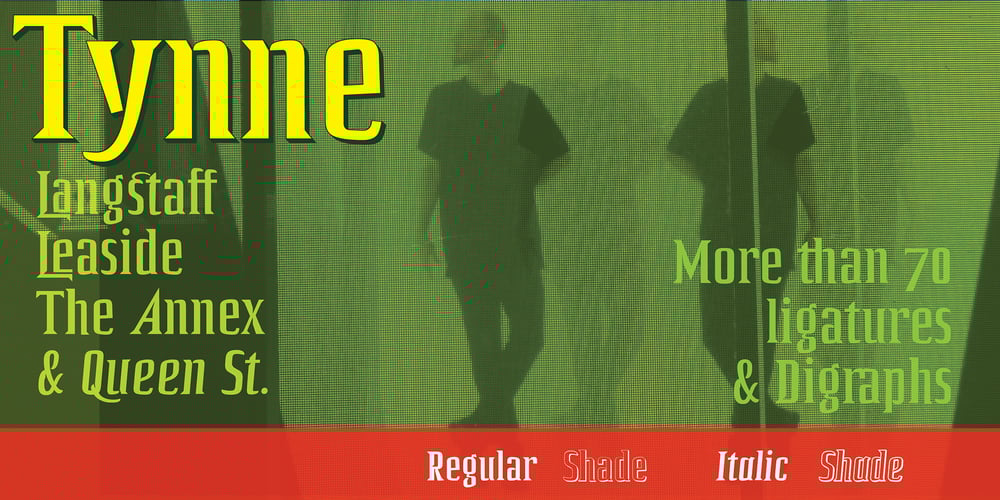
Tynne
Tynne font
Tynne Font Family was designed by Russell A. McGorman and published by Our House Graphics. Tynne contains 3 styles and family package options. OHG is pleased to announce the release of Tynne 2.0, now with two new out-line, drop-shade fonts which work independently as attractive display faces in their own right or one layer of a two layer, chromatic typeface. In addition, kerning and letter spacing have been adjusted and improved to ensure all characters will line up correctly when layered. Tynne, Is a strong, wedge-serif, condensed display font. Deep �ink traps�, subtly varied forms and open counters bring to its even colour and pleasingly regular rhythm a bit of syncopation and sparkle making it ideal for packaging, elegant yet informal headlines and posters. OpenType features include over 70 standard and discretionary ligatures and digraphs, three sets of figures, alternate characters, small caps and swashes. We are proud to acknowledge the assistance and contributions of fellow type designer, James Arboghast.